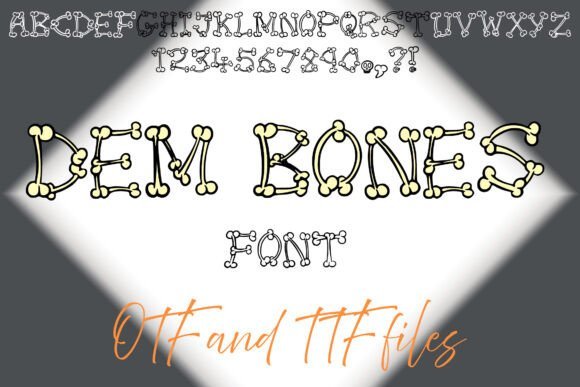
Unleash Your Spooky Side with Dem Bones Font
As a designer, have you ever been brainstorming ideas for a Halloween project and found yourself stuck on the perfect font to convey the spooky atmosphere? You’re not alone! We’ve all been there, scrolling through font libraries, searching for that one font that screams “creepy” and “cool.” Well, your search is over. Introducing Dem Bones Font, a unique and creative font that brings a bone-chilling twist to your designs.
With Dem Bones Font, you can add a touch of spookiness to your projects, from horror movie titles to eerie invitations and creepy branding. Its detailed bone structure makes it perfect for designers looking to add a unique element to their work. Whether you’re working on a haunted event or a fun bone-related project, Dem Bones Font is the perfect addition to take your designs to the next level.
Dem Bones Font Key Features
- Font Family: Dem Bones, a unique and playful font inspired by the classic song “Dem Bones” by James Weldon Johnson.
- Unique Characteristics: The font features a distinctive, hand-drawn feel with a mix of rough and smooth textures, adding to its unique character.
Dem Bones Font Review
I recently had the chance to play around with the Dem Bones Font, and I have to say, it’s a fun and quirky addition to any design project. ✨ The font’s unique, hand-drawn feel immediately caught my attention, and I enjoyed experimenting with it.
- ✨ Uniqueness: Dem Bones Font stands out from the crowd with its quirky, hand-drawn aesthetic.
- ✨ Versatility: The font can be used for a wide range of projects, from children’s books to advertising materials.
- ✨ Expressiveness: The font’s irregularities and imperfections make it perfect for conveying a sense of playfulness and creativity.
- ⚠️ Readability: At smaller font sizes, the font can become difficult to read due to its irregularities.
- ⚠️ Limited legibility: The font’s unique style may not be suitable for projects where clarity and precision are essential.
Overall, I think Dem Bones Font is a great choice for designers looking to add some personality to their work. While it may not be suitable for every project, it’s a fun and creative option that can help you stand out from the crowd.
Tip: Use the “Dem Bones Font” to create fun and educational graphics for kids, such as alphabet or number charts.
Tip: Use the “Dem Bones Font” to create custom illustrations or graphics for educational materials.
Tip: Use the “Dem Bones Font” to create engaging presentations or educational materials for kids.
The “Dem Bones Font” is ideal for:
- Creating educational graphics for kids.
- Designing fun and interactive presentations.
- Developing custom illustrations or graphics for educational materials.